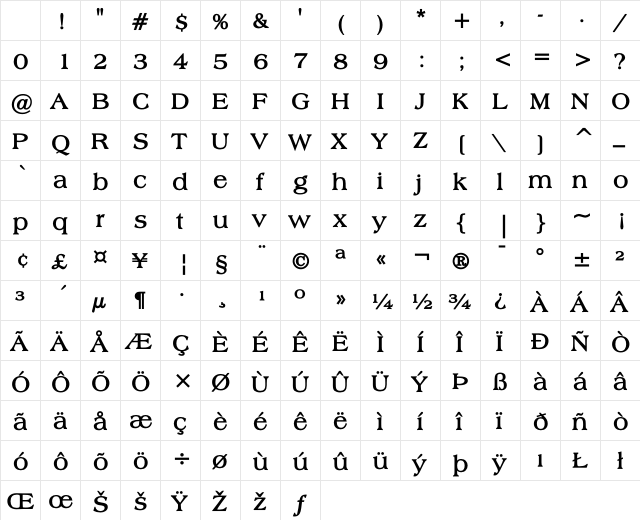
Complete Broadsheet LDO Bold glyph index. Displaying only characters natively supported by Broadsheet LDO Bold font.
Broadsheet LDO is a composed and adaptable typeface that performs quietly and consistently across a wide range of design contexts. Its bold stroke weight gives it real presence on the page.